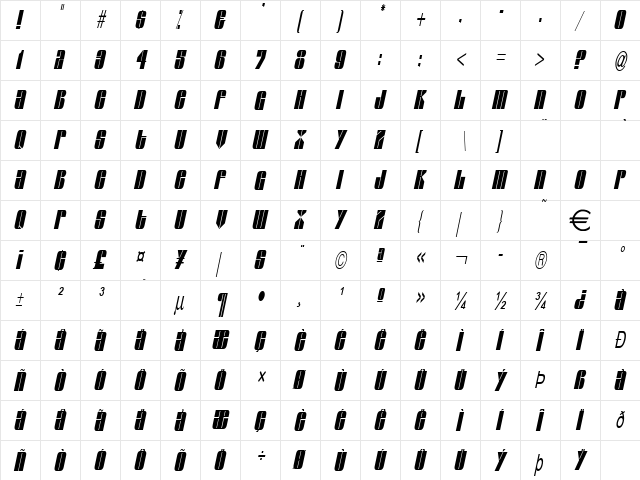
GlazeExtendedCondensed Italic Font Preview
Design Context for GlazeExtendedCondensed Typeface
GlazeExtendedCondensed takes a measured approach to typography — its balanced proportions and neutral character make it a reliable workhorse for both digital and print work. Its italic angle brings a sense of urgency and motion to the letterforms. Its narrow stance lets it pack a punch even in space-constrained designs.